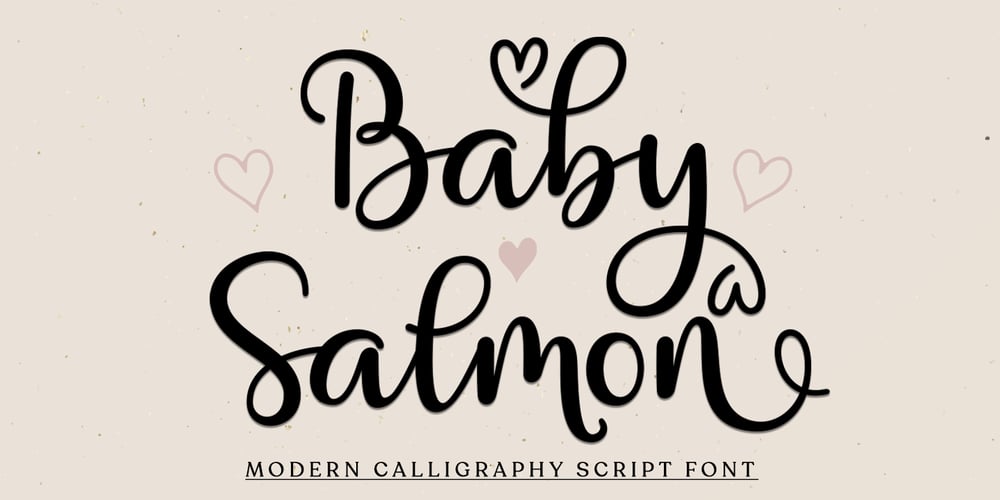
Baby Salmon Script Font Family was designed by Mur Zani and published by Zane Studio. Baby Salmon Script contains 1 styles and family package options. Baby Salmon Script is a beautiful script font with many alternative styles, natural looking, elegant and perfect for any extraordinary project.Baby Salmon Script is suitable for various products such as invitations, product packaging, product design, crafters, labels, photography, watermarks, logos & branding.Everything can be accessed using software that supports Opentype, such as Adobe Indesign, Adobe CS Illustrator, Adobe Photoshop CC, and Corel Draw.Please message if you have any questions, and say hello.Thank you ๐